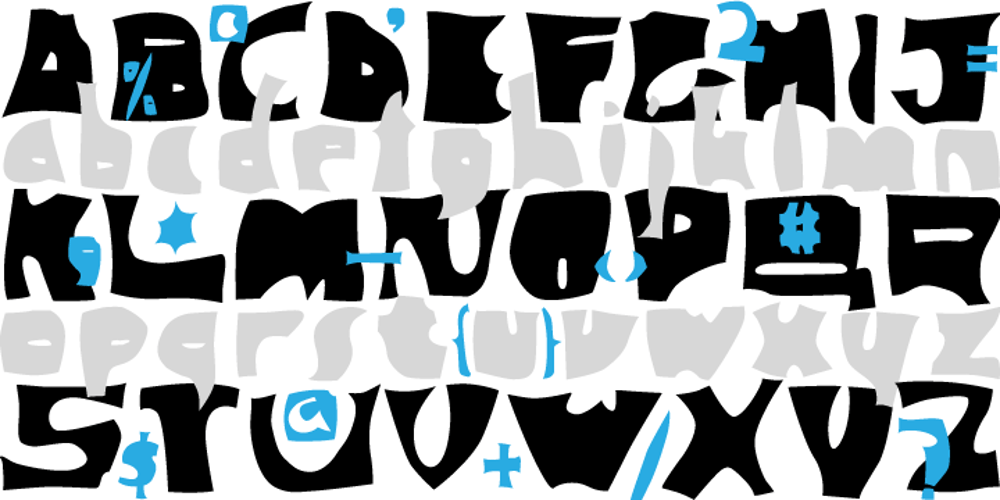
Out Back Font Family was designed by Tim Barnes and published by chicken. Out Back contains 1 styles and family package options. A twice-painted sign in Tobago’s back country was the seed for this weird grab-bag of chunky, slightly sleazy letterforms.